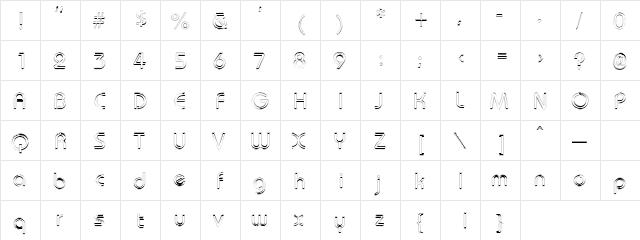
Astra hollow Line Regular Font Preview
Astra hollow Line Regular
Astra hollow Line Regular Font Details
Design Context for Astra hollow Line Typeface
Astra hollow Line offers clean, dependable letterforms without strong stylistic allegiance, making it a practical choice for designers who need flexibility.